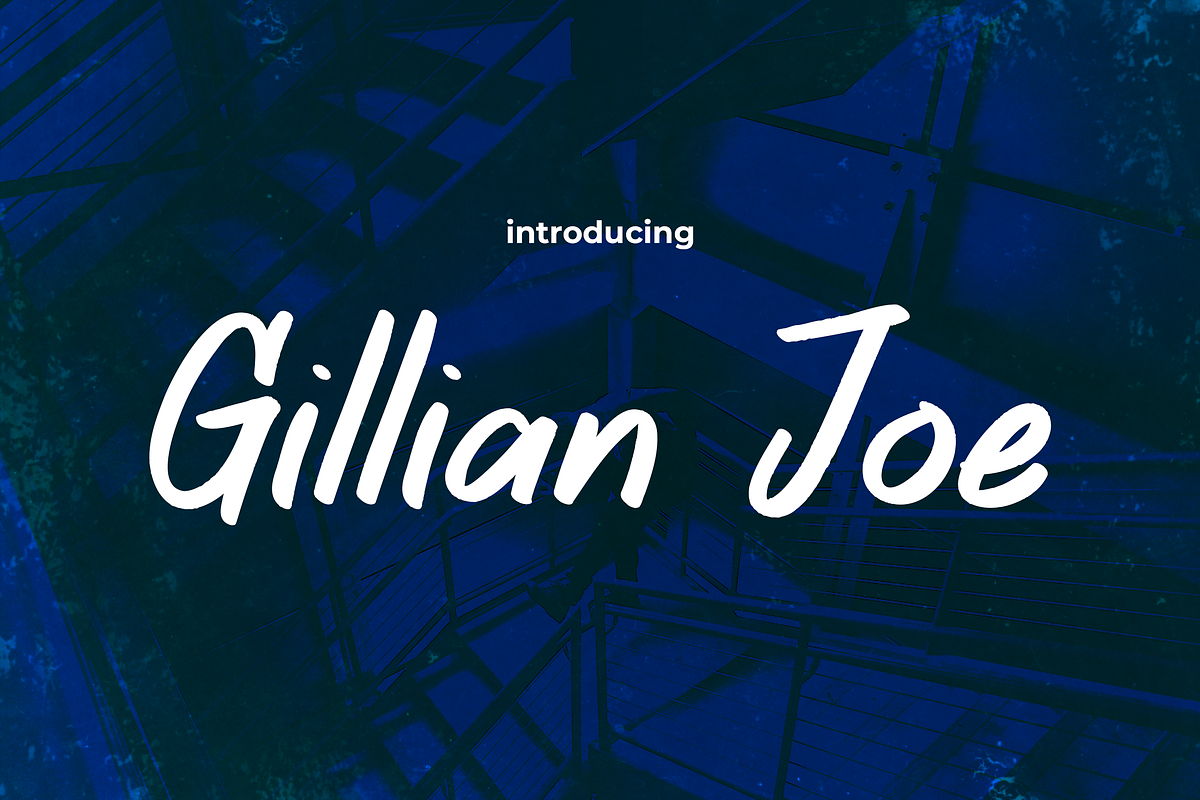
Please note that you must purchase this font for commercial use. You can download Gillian Joe Font for free, strictly for personal testing purposes only. Gillian Joe is an elegant and modern script font that blends smooth, flowing letterforms with a sophisticated touch. With its artistic, handwritten style and graceful curves, Gillian Joe Font Free Download is perfect for invitations, branding, logos, wedding stationery, and any creative project that requires a stylish, personal flair.
This font captures a sense of refinement and charm, ideal for both formal and informal designs. It includes uppercase and lowercase letters, numerals, punctuation, and multilingual support, offering flexibility for a variety of global projects.
Whether you're working on a luxury brand, creating personalized designs, or designing beautiful stationery, Gillian Joe brings sophistication and elegance to your typography.